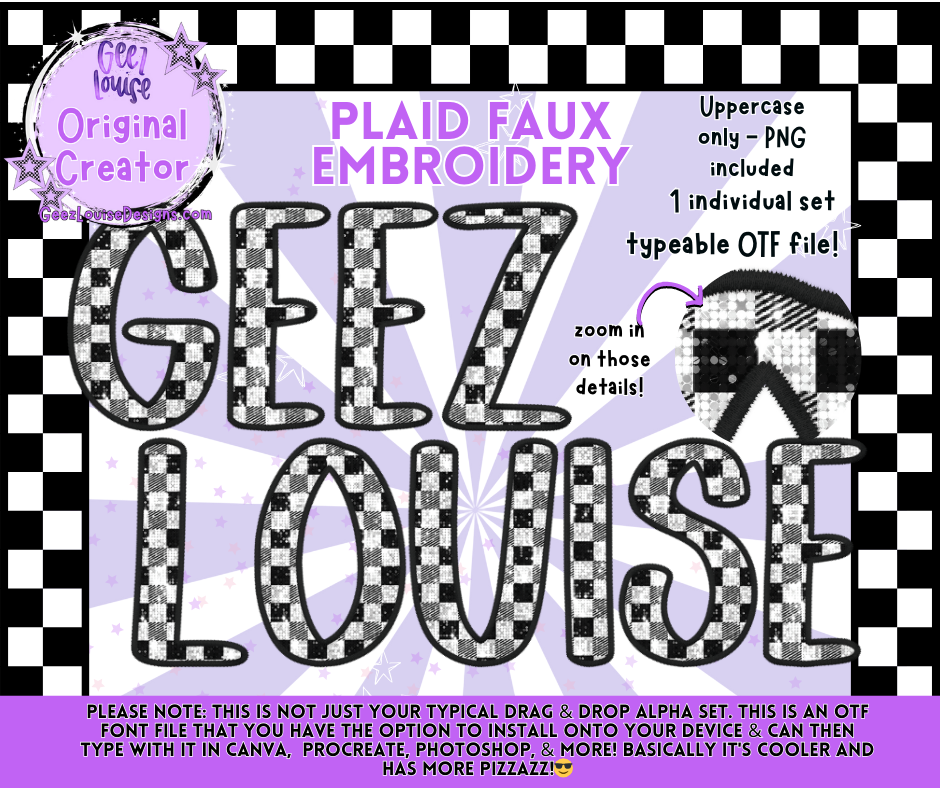
Plaid Faux Embroidery Alpha Font | OTF & PNG Letters
🖤 Add rustic charm to your projects with the Plaid Faux Embroidery Alpha Font! 🖤
This digital set combines a classic plaid pattern with faux embroidered edges, creating a textured, cozy style that’s perfect for seasonal and farmhouse-inspired designs.
💡 Why you’ll love it:
• Faux stitched edges add depth and handmade character.
• Timeless plaid design perfect for rustic, winter, and farmhouse vibes.
• Great for shirts, mugs, ornaments, holiday signage, and digital crafting projects.